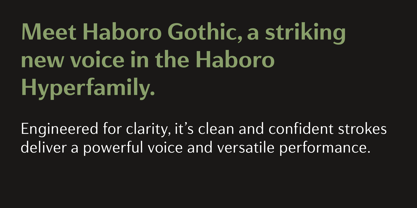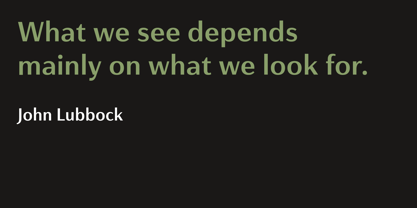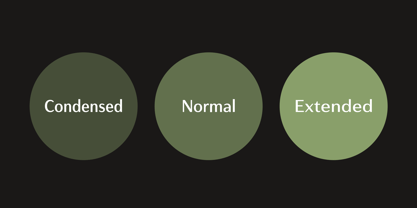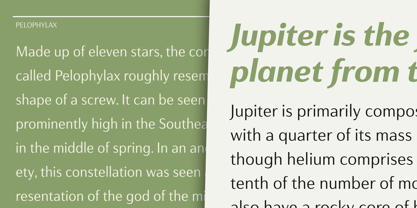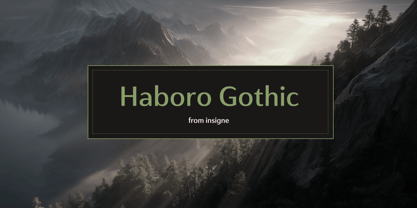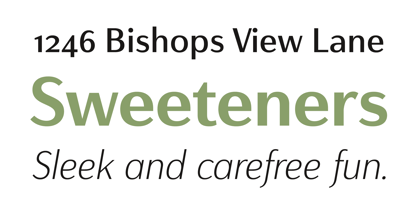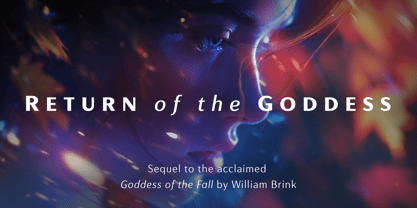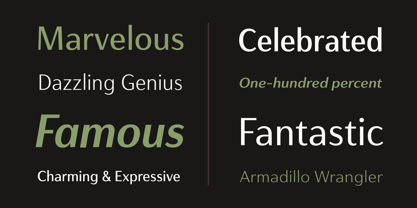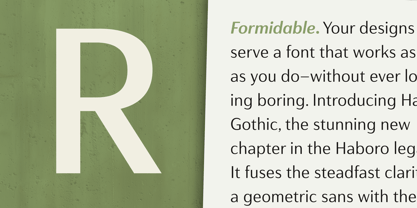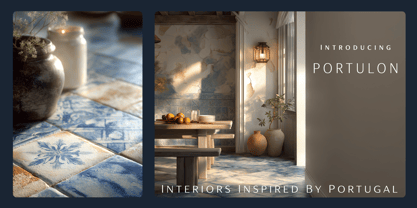
Haboro Gothic
by insigne
The Haboro Gothic Font Family was designed by Jeremy Dooley and published by insigne. Haboro Gothic contains 54 styles and family package options. More about this family
Where Workhorse Meets Wow. This is Haboro Gothic.
Your designs deserve a font that works as hard as you do—without ever looking boring. Introducing Haboro Gothic, the stunning new chapter in the Haboro legacy. It fuses the steadfast clarity of a geometric sans with the sophisticated flair of a high-contrast display face.
The result is an immediate upgrade for any project. Haboro Gothic imbues your layouts with a modern, architectural confidence. Use it to build premium brands, design editorial spreads that feel exclusive, or create websites that are both beautiful and intuitive. This isn’t just another font; it’s your new secret weapon for creating sophisticated, high-impact design.
Why Designers Choose Haboro Gothic:
• Effortless Elegance: Achieve a refined, contemporary look instantly.
• Total Versatility: The perfect balance for branding, web, packaging, and editorial design.
• Flawless Performance: Engineered for crisp rendering on high-resolution screens and pristine results in print.
• Bespoke Details: Leverage powerful OpenType features to add a signature, custom touch to your work.
Designers: Jeremy Dooley
Foundry: insigne